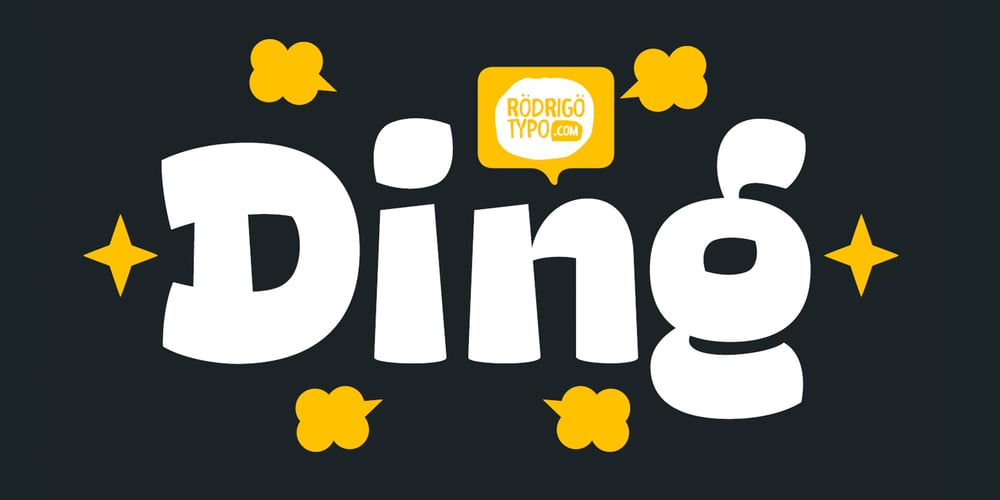
Ding Font Family was designed by Andrey Kudryavtsev, Rodrigo Araya Salas, Franco Jonas Hernández and published by RodrigoTypo. Ding contains 2 styles and family package options. An entertaining typography, dense but at the same time very gestural. “Ding” is a sans font that contains different alternatives of letters, a Cyrillic alphabet and Dingbat, special for children’s titles.